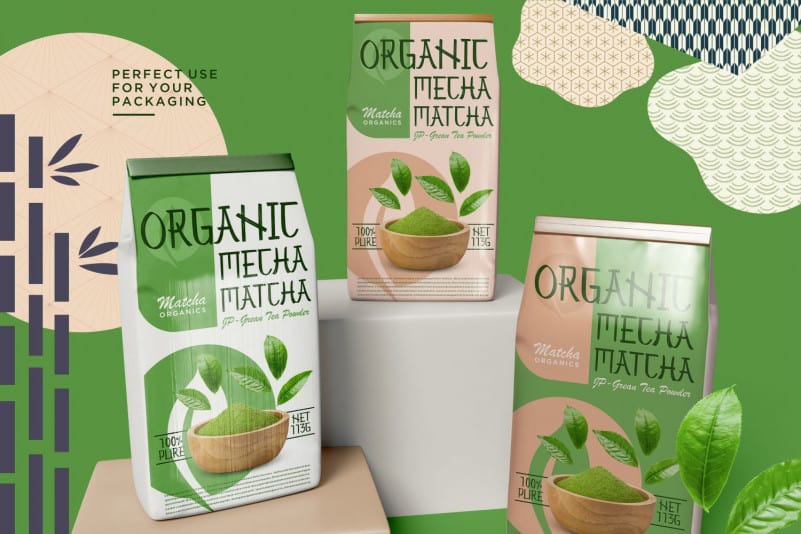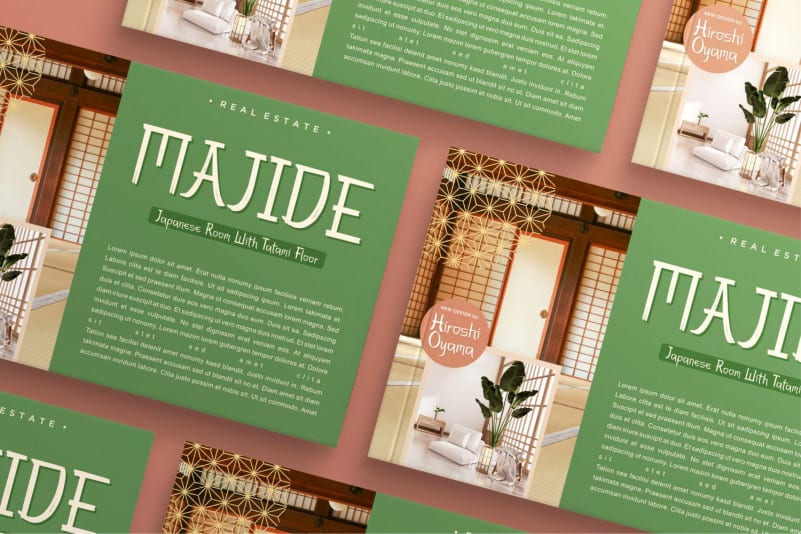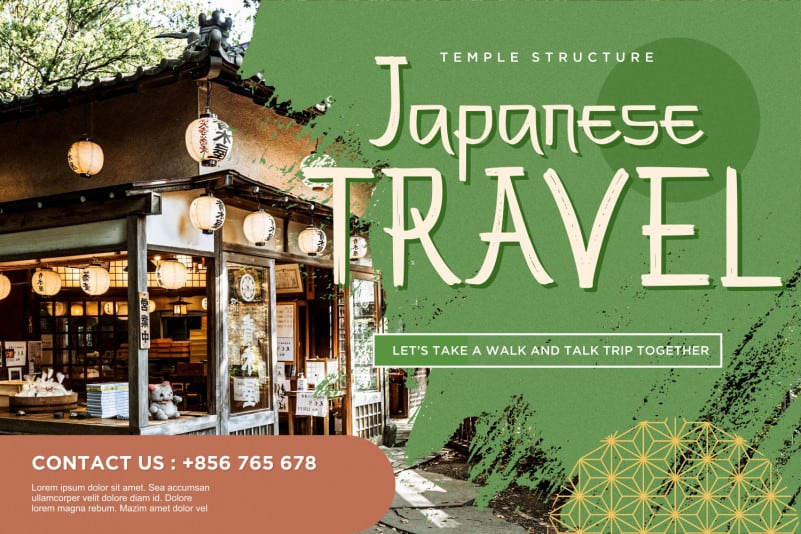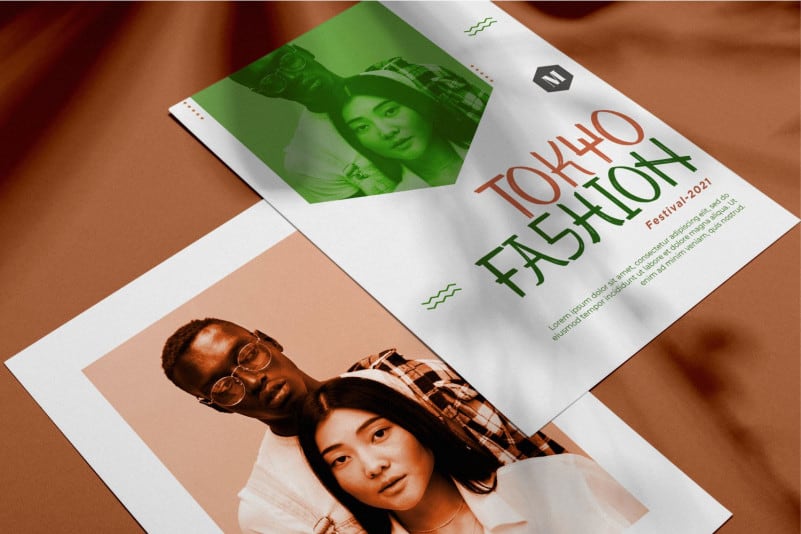
Masmuseh Display Font
Masmuseh Display Font is a unique display font with japanese influences. This font is the ideal font for adding an adventurous and authentic feel to your next design idea!